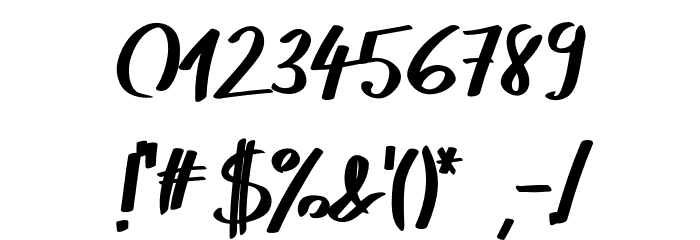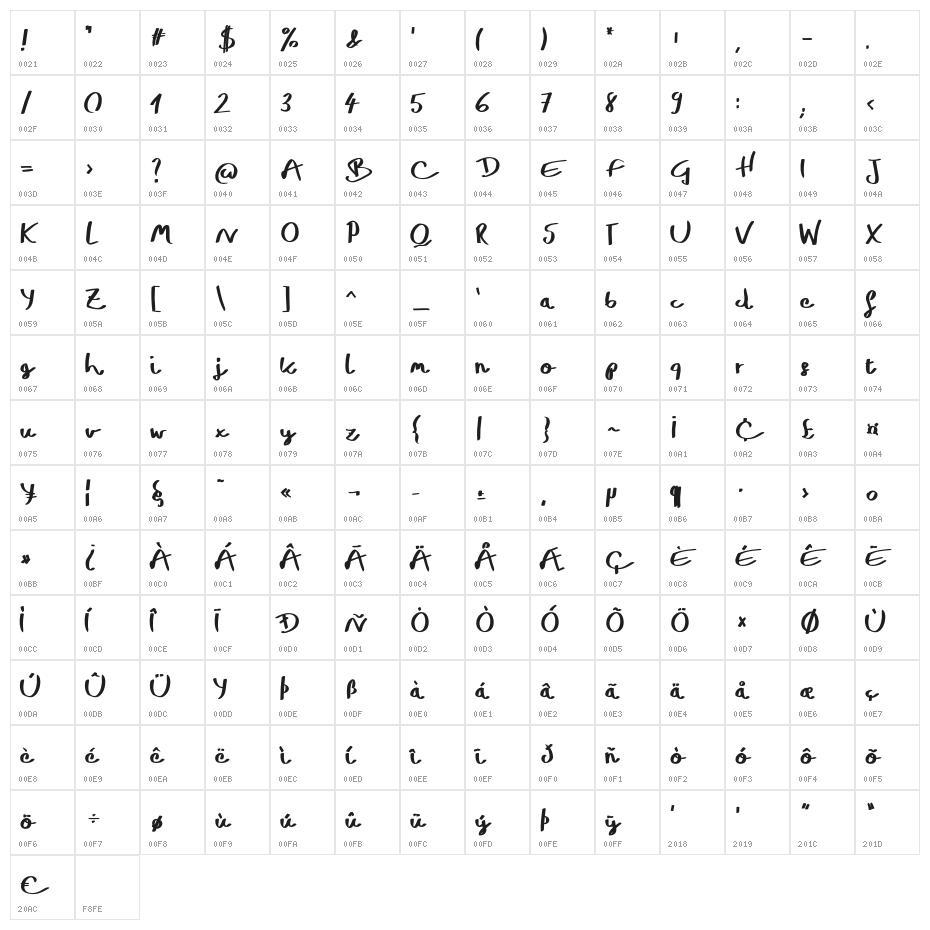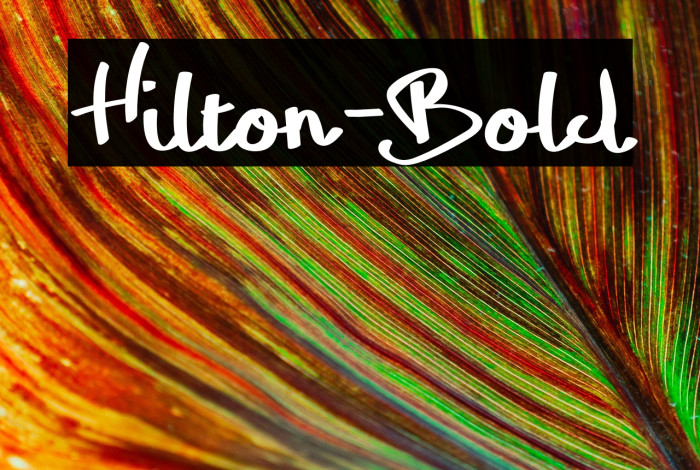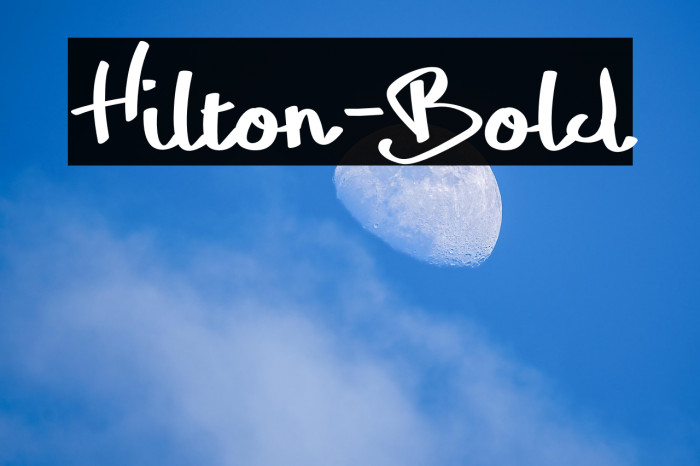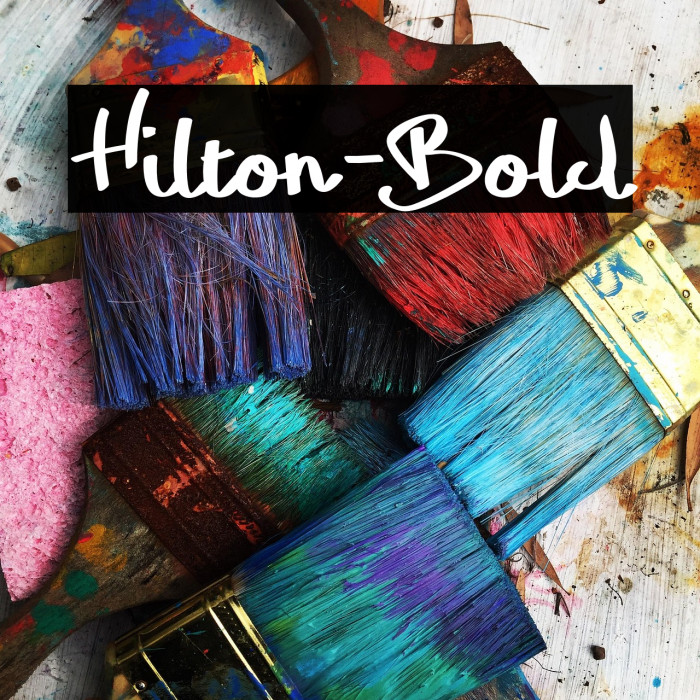
Hilton-Bold Font
Hilton-Bold Description
This font features a bold and expressive handwritten style, characterized by its fluid and dynamic strokes. The uppercase letters are bold and slightly slanted, giving a sense of movement and energy. The lowercase letters maintain a consistent flow, with some characters featuring unique loops and curves that add to the font's charm. Numbers are bold and clear, ensuring readability. Special characters are creatively designed, maintaining the overall handwritten aesthetic. This font exudes a playful yet sophisticated vibe, making it suitable for various creative applications.
| Proposed Projects | Ideal for creative projects such as greeting cards, invitations, branding, and social media graphics. |